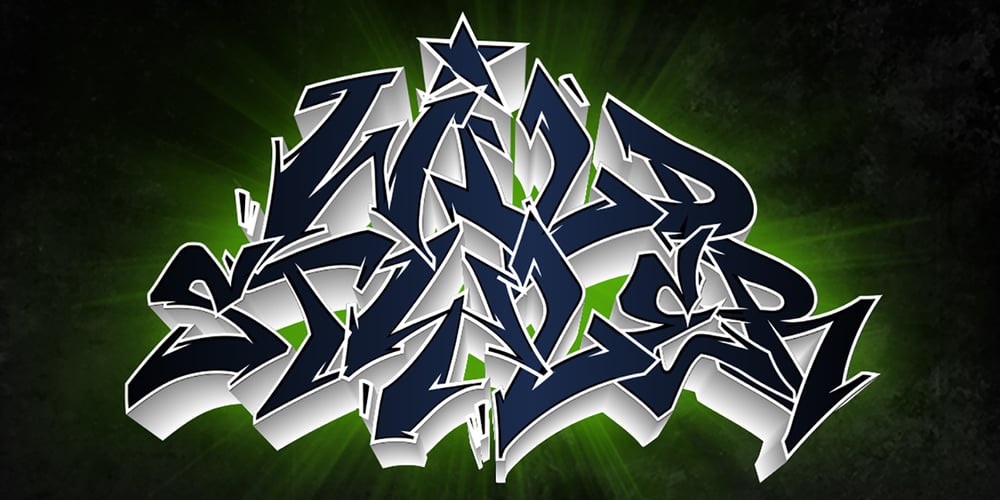
Wildstyler Font Family was designed by Cipto Bagus Prakarso and published by Tomatstudio. Wildstyler contains 2 styles and family package options. Today everyone can create wildstyle graffitii easily! With all my experience in graffiti and my street art life, i proudly present “Wildstyler fonts”.Wildstyler style is combined my original graffiti style and several best graffiti styles around the world. Combine Wildstyler Line and Wildstyler Fill for best result, add it with drop shadow or extrude to make it more realistic, also add highlight shine is also make it stand out! Best for your Graffiti assets, Street art design concept, Hip-Hop events and many more!Although i already set the kerning and spacing, i reccomend you guys to adjust the kerning manually for the best results, it’s because yea you know.. this is real graffiti styles! not an ordinary fonts.